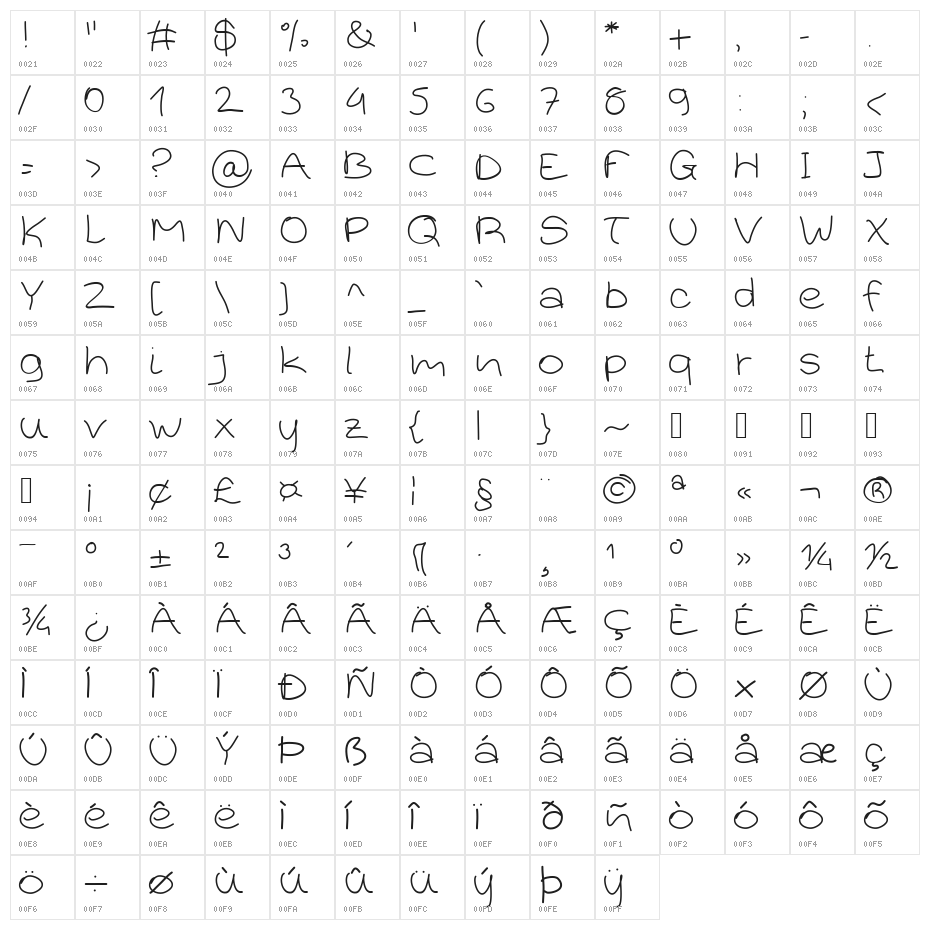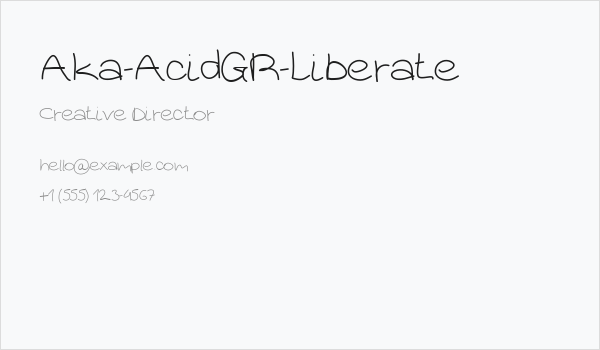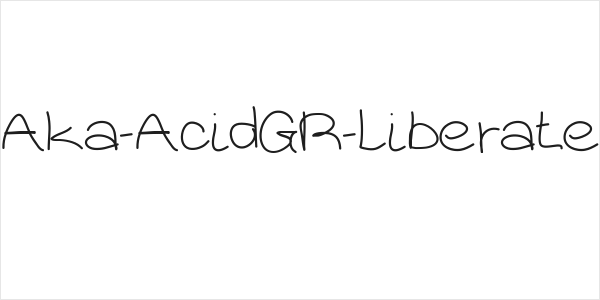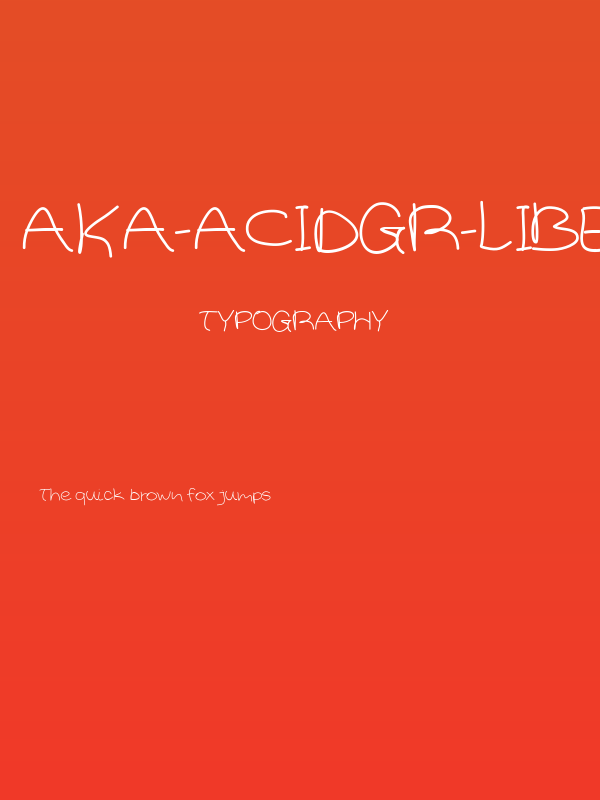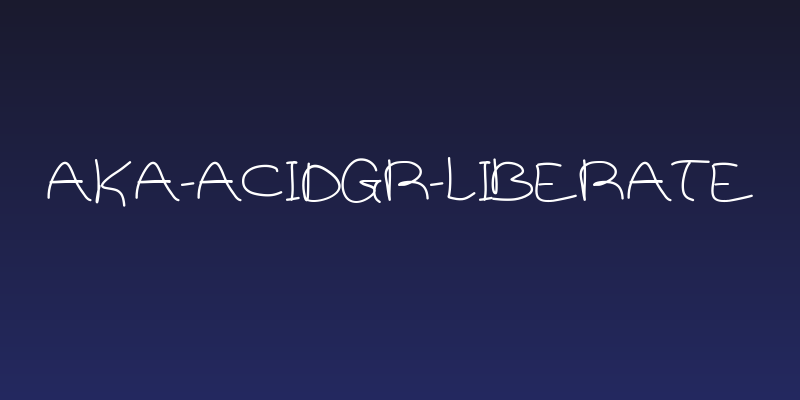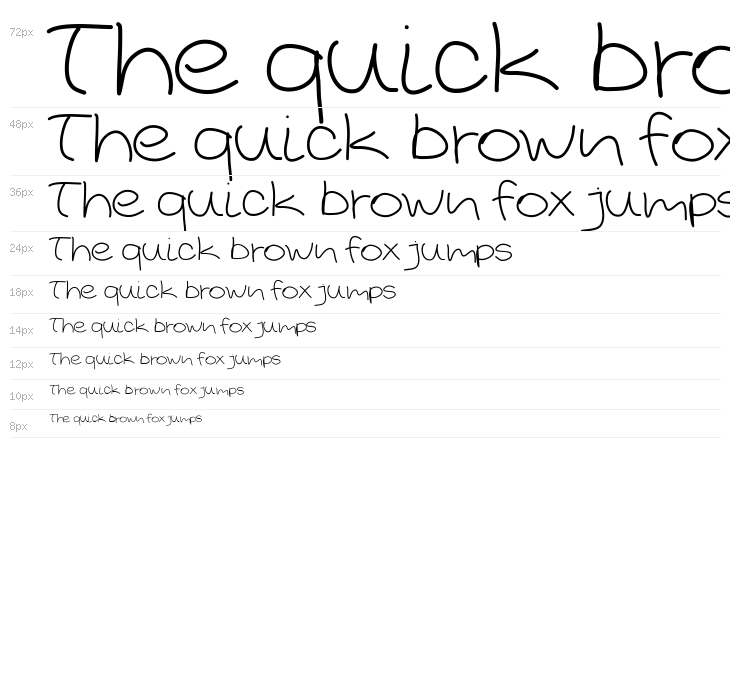
Aka-AcidGR-Liberate Font
Aka-AcidGR-Liberate Description
This font features a playful and casual handwritten style, characterized by its smooth, flowing lines and slightly irregular shapes. The uppercase letters maintain a consistent height, while the lowercase letters exhibit a more varied baseline, adding to the informal and dynamic appearance. The numerals and special characters are designed to complement the alphabet, with rounded edges and a consistent stroke width. This font's overall aesthetic is approachable and friendly, making it suitable for projects that require a personal touch.
| Use Case | Logos, Headlines, Informal Text |
| Proposed Projects | Ideal for greeting cards, children's books, personal blogs, and informal branding. |